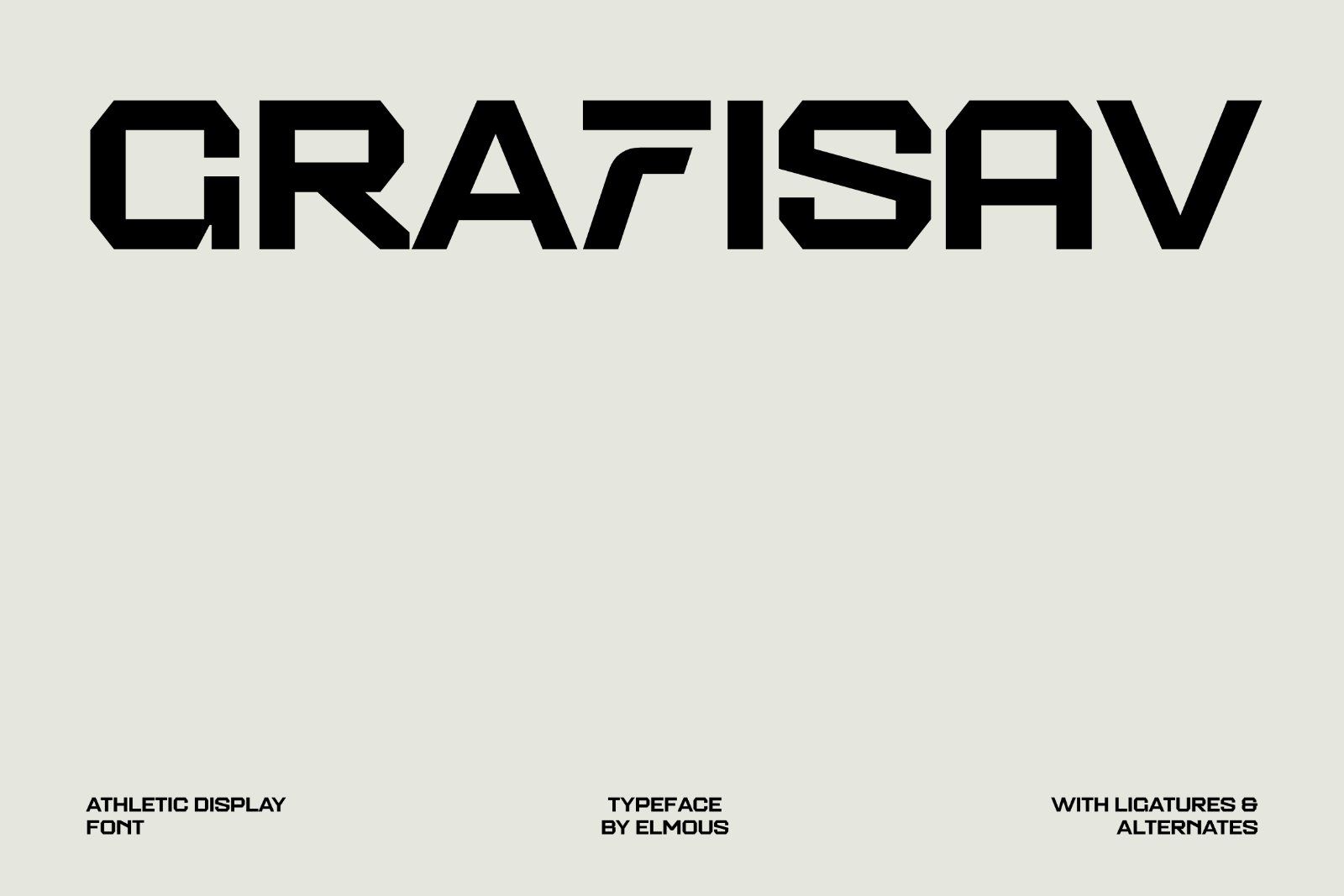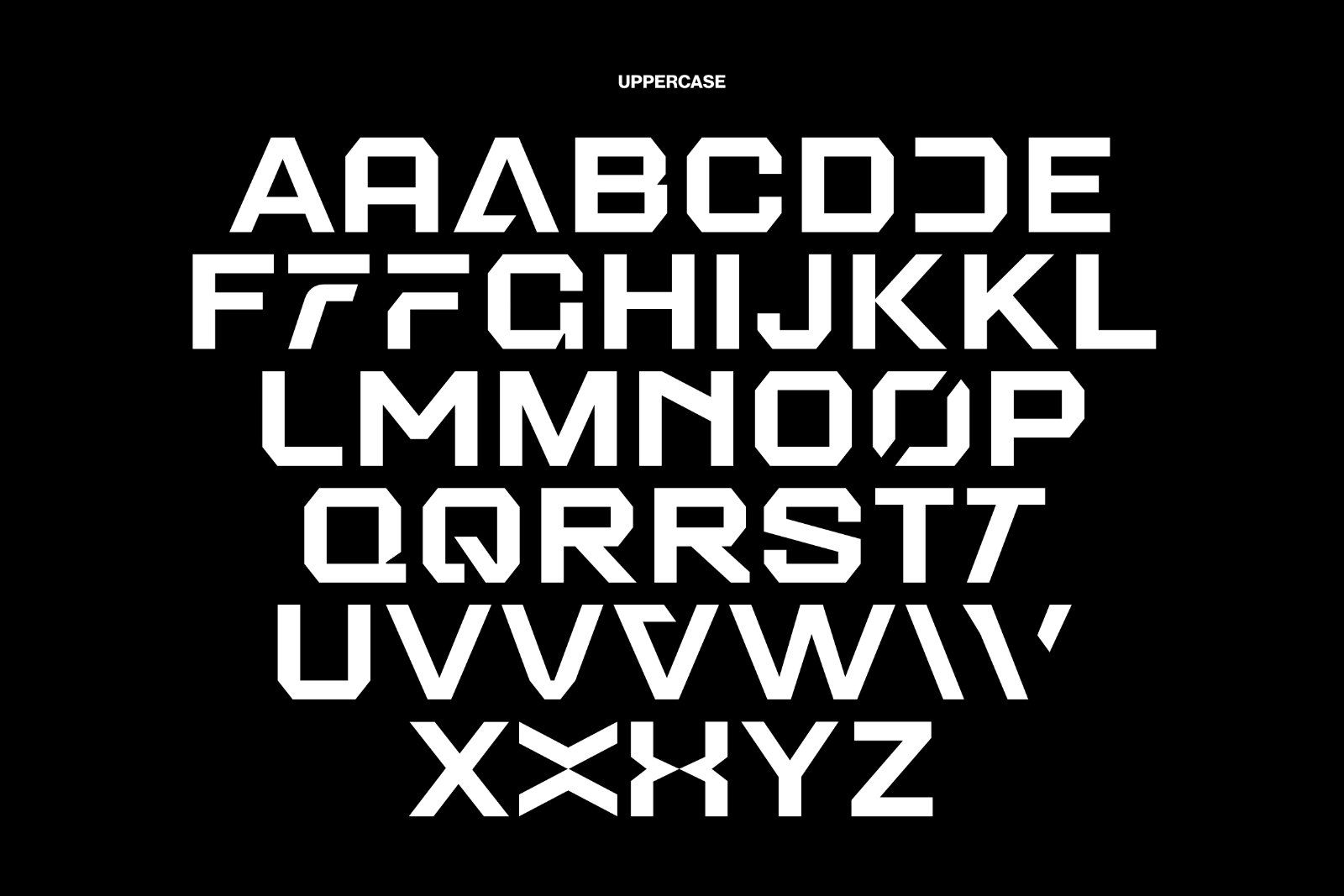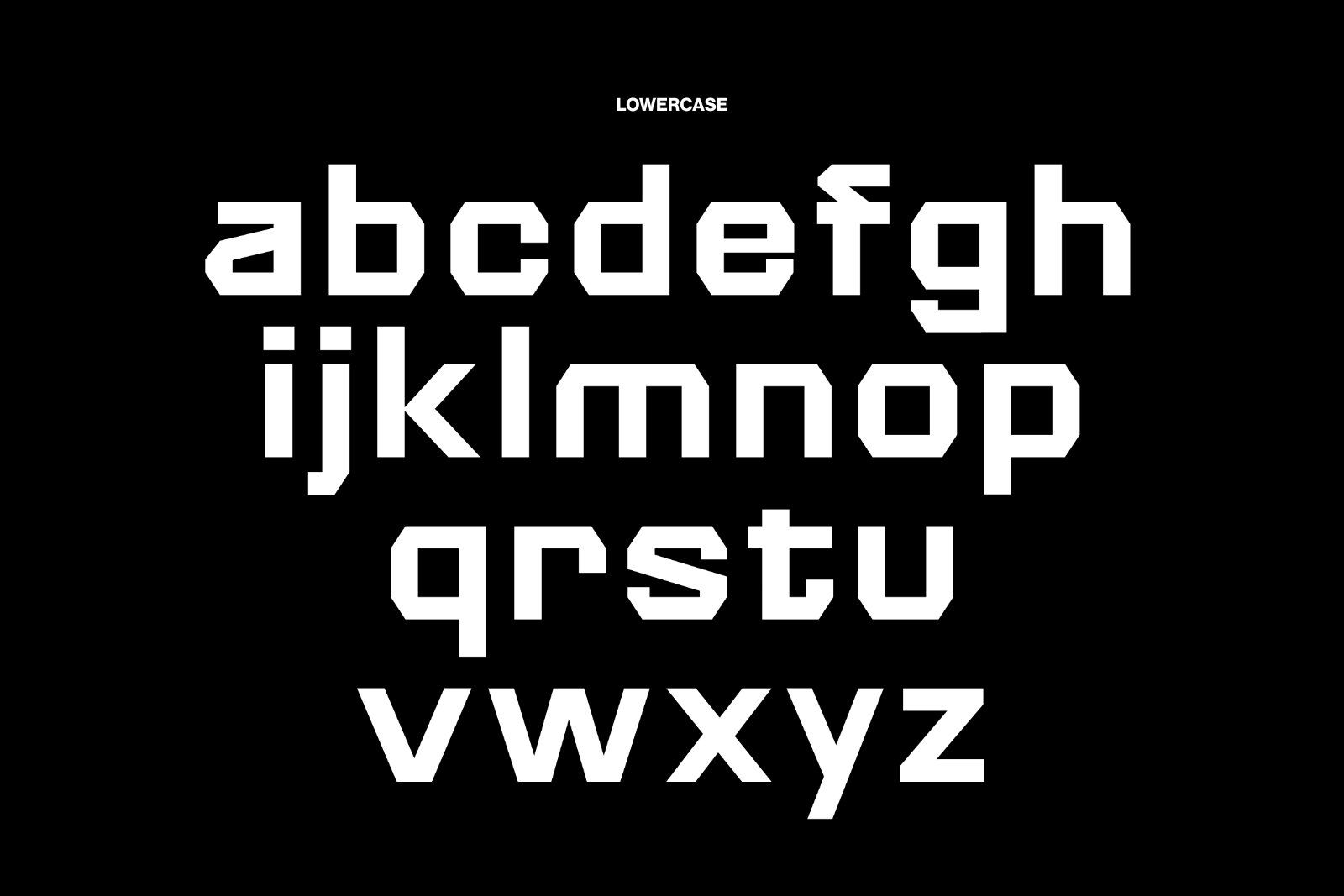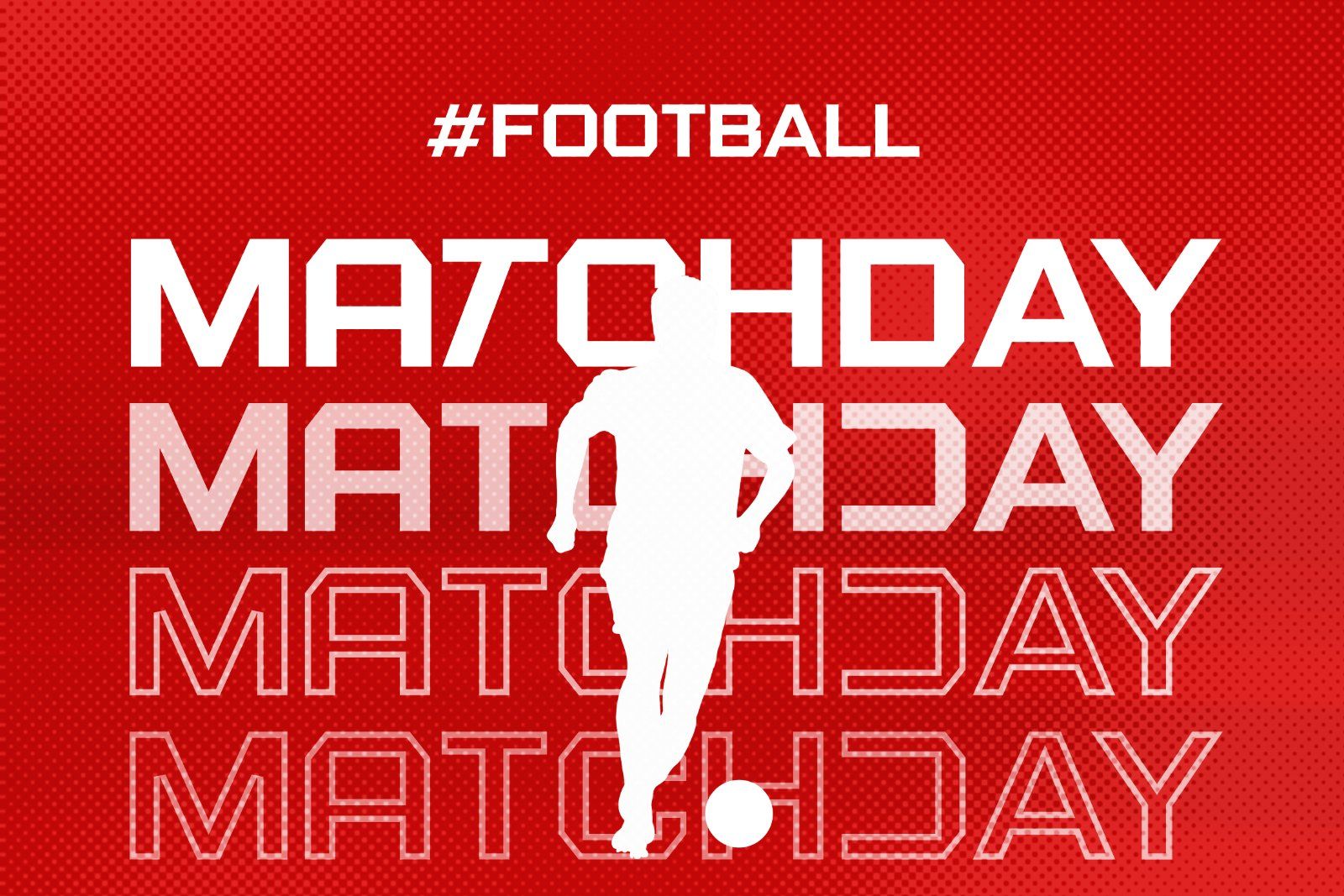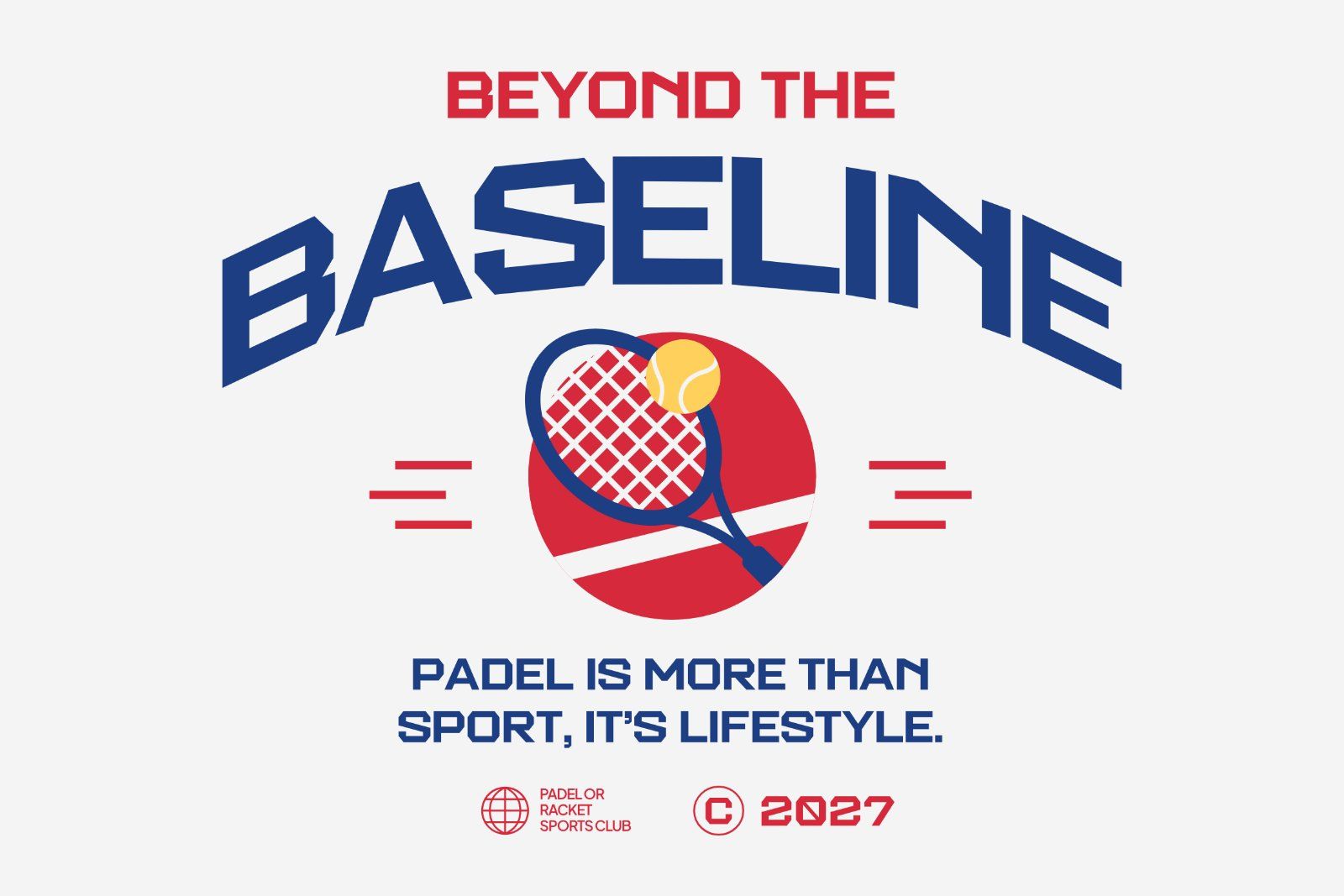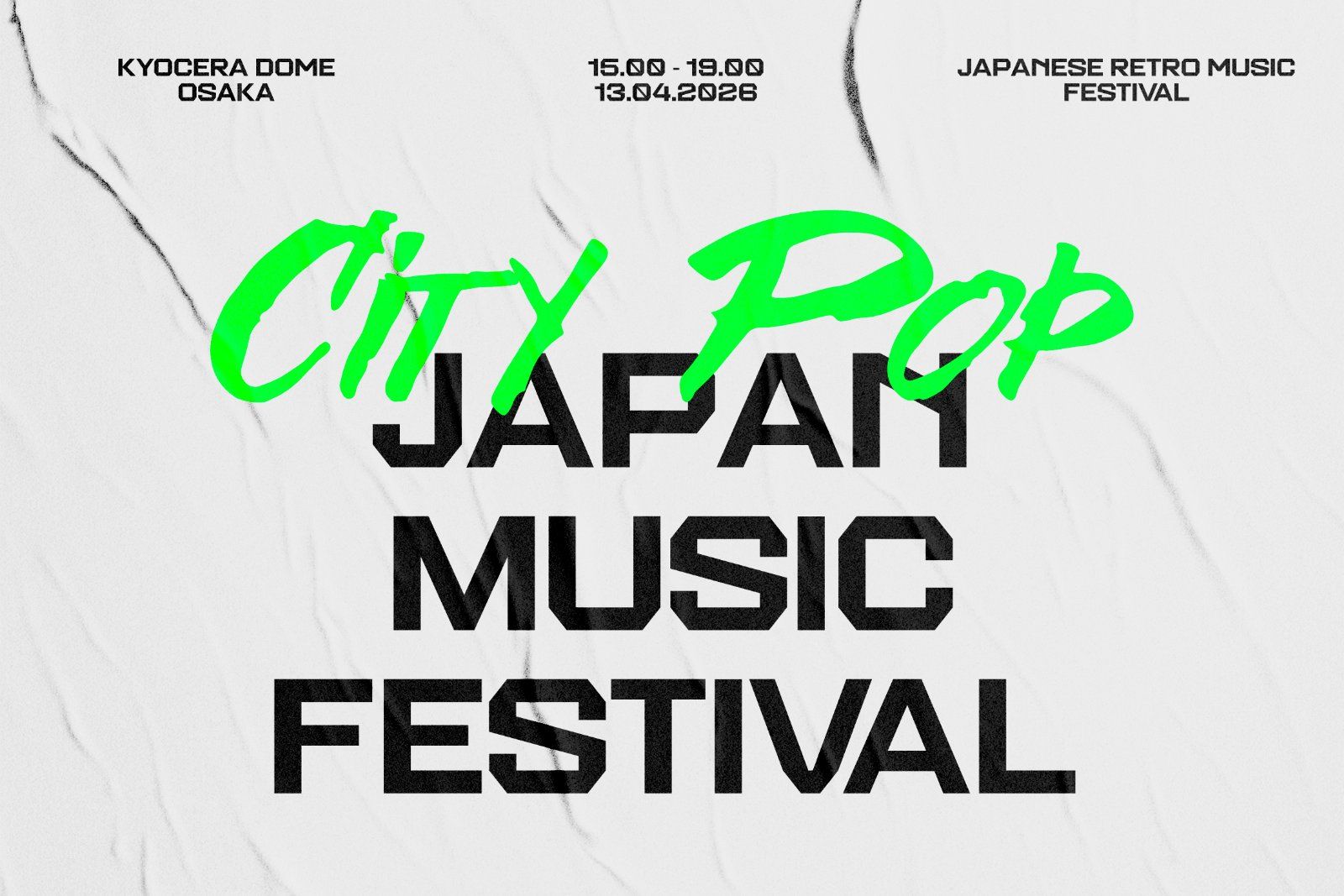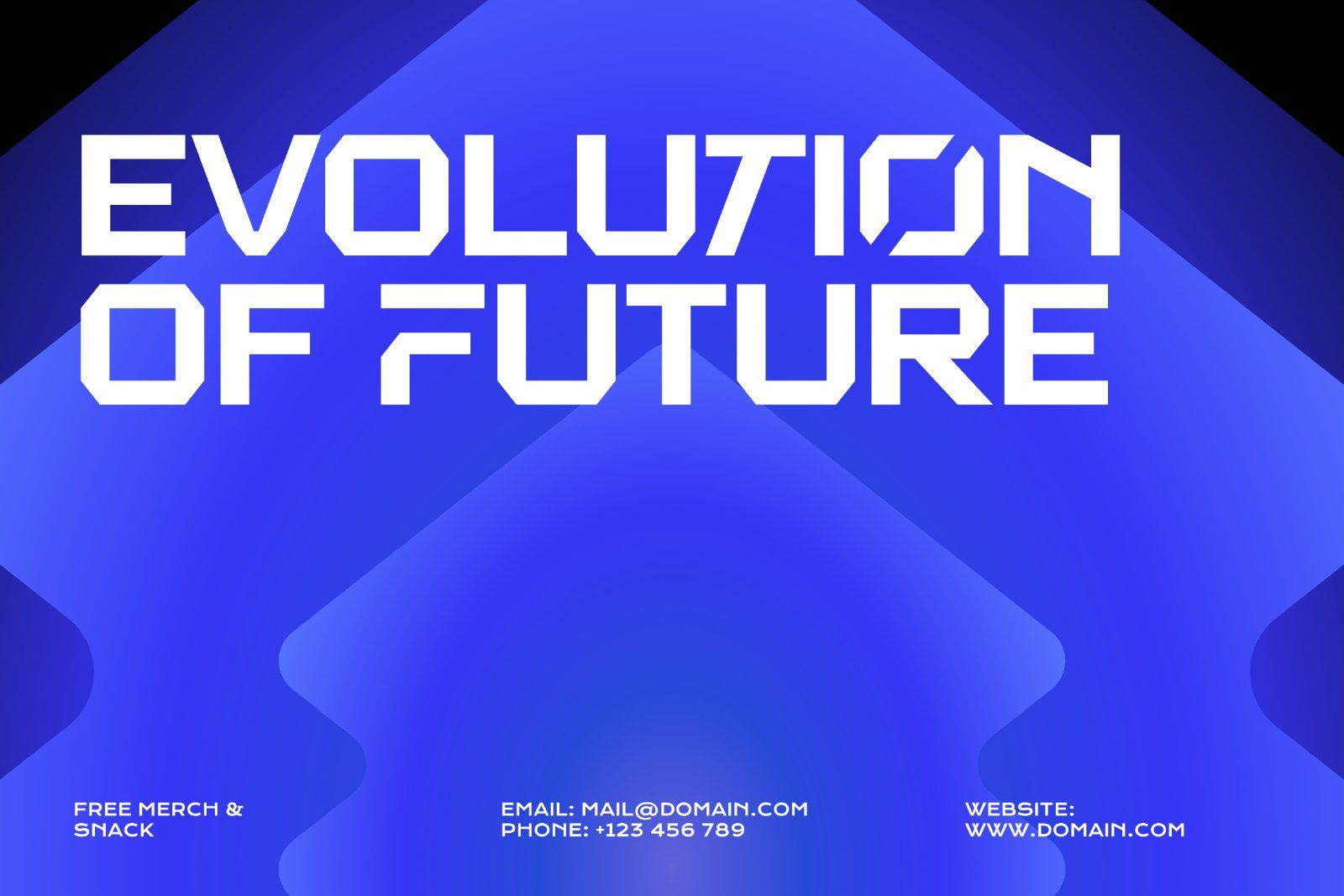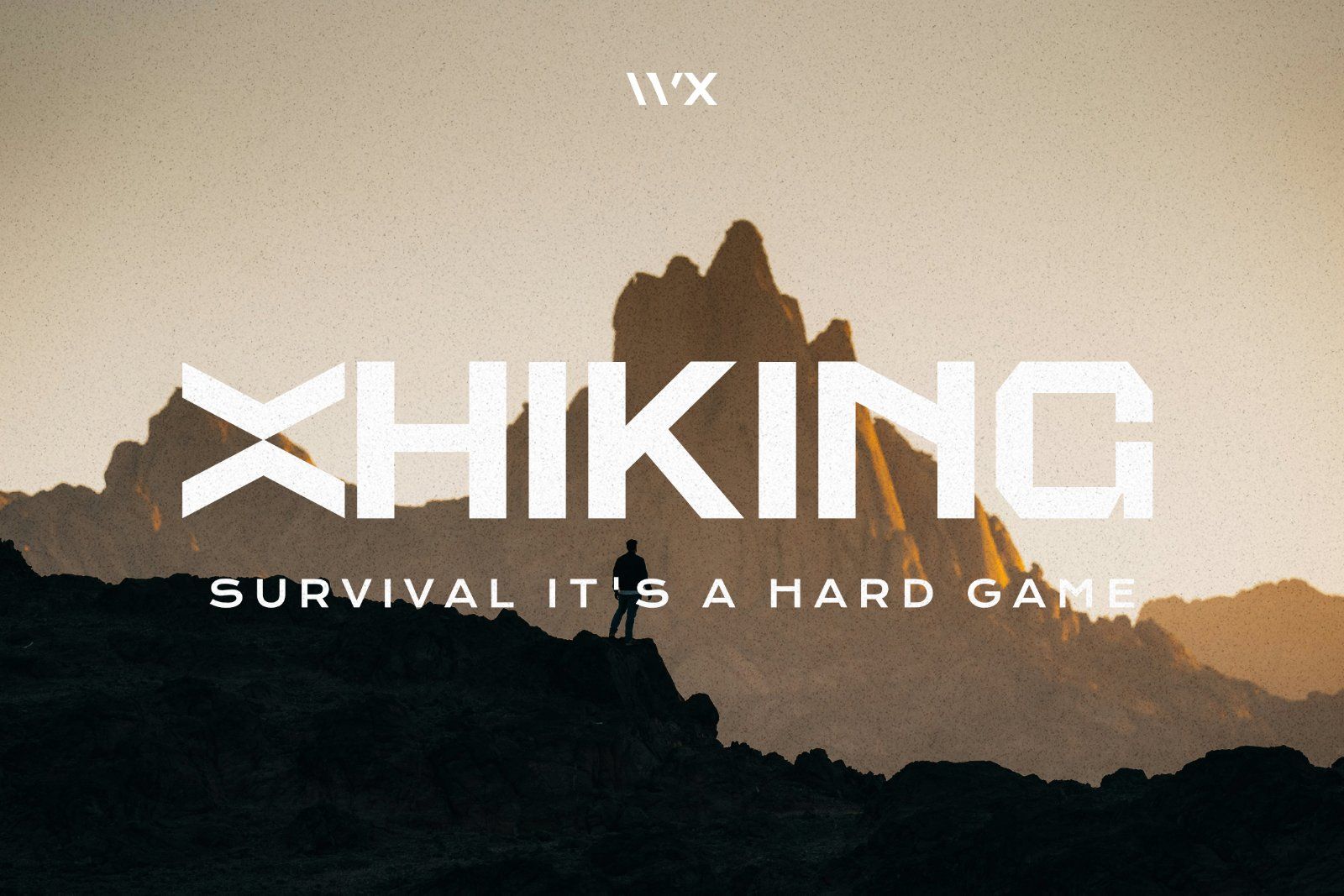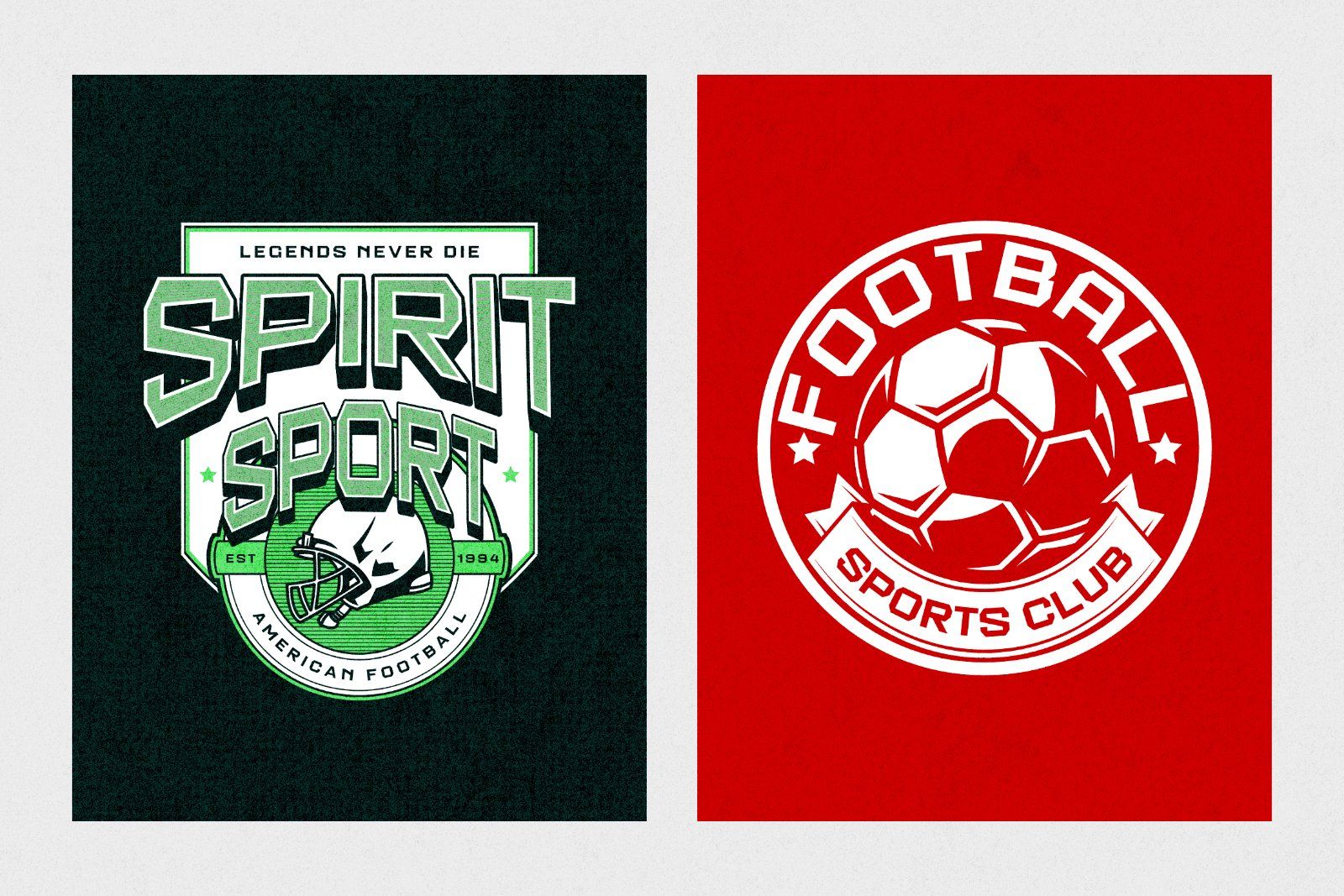
Grafisav is a powerful, heavy display typeface designed to deliver maximum visual impact. Built with a solid geometric foundation, it features sharp chamfered corners, heavy block stems, and distinct angular cuts. Its rugged, octagonal structure blends athletic jersey styling with futuristic, cyberpunk elements, making it an essential choice for high energy designs.
This font ideal for:
• Sports: Matchday posters, team logos, and fantasy sports graphics, sports social media content
• Gaming: Cyberpunk UI, streamer overlays, game titles, futuristic branding.
• Branding: headlines, event banners, product packaging, bold logotypes, sports magazine covers.
• Uppercase and Lowecase Characters.
• Numerals and Punctuations.
• Alternates and Ligatures.
• Multilingual Support.